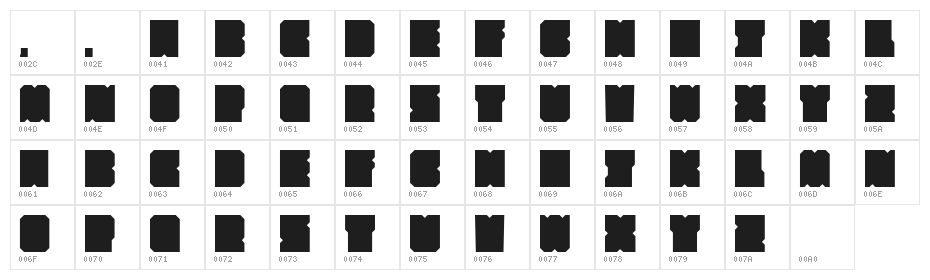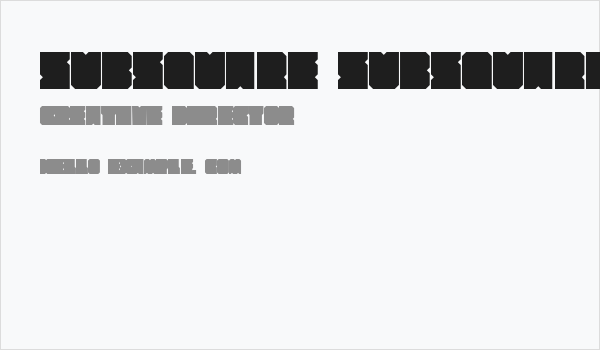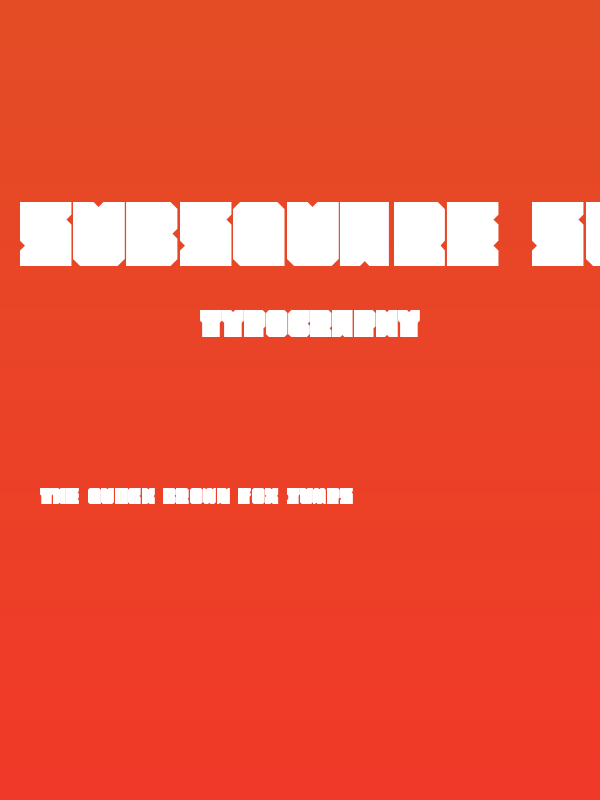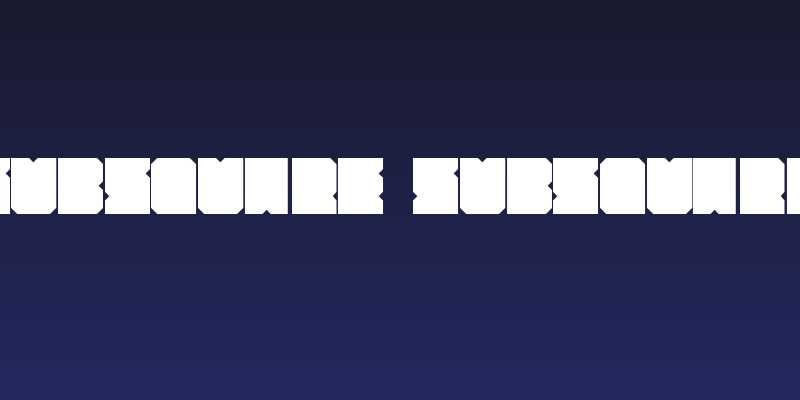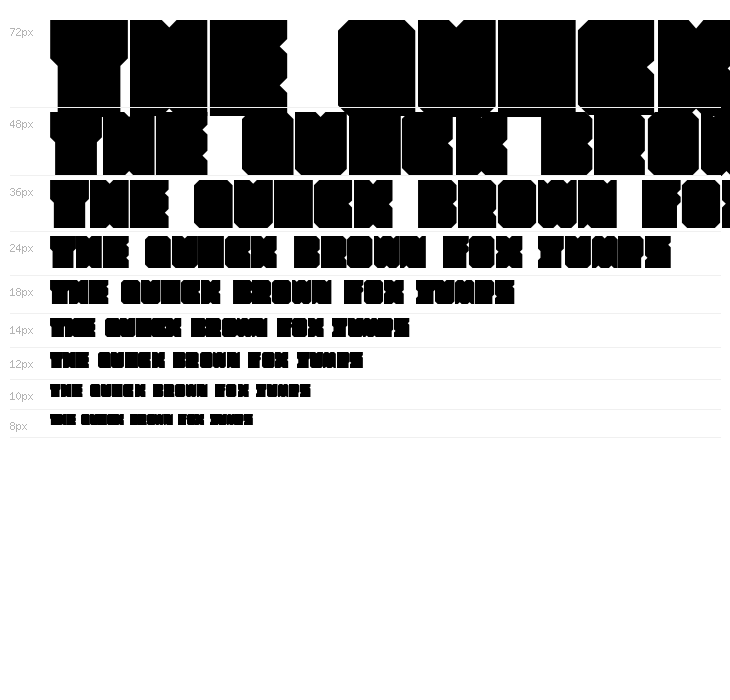
SubSquare Font
SubSquare Description
This font features a bold, geometric design with a distinctly modern and futuristic aesthetic. Each character is constructed using solid, block-like shapes, creating a sense of uniformity and strength. The letters are highly stylized, with angular cuts and a consistent width that gives them a monospaced appearance. This design choice results in a striking visual impact, making it ideal for attention-grabbing headlines or logos. The absence of curves and the emphasis on straight lines and sharp angles contribute to its unique and memorable style.
| Proposed Projects | Ideal for branding, logos, posters, and any project requiring a strong visual impact. |